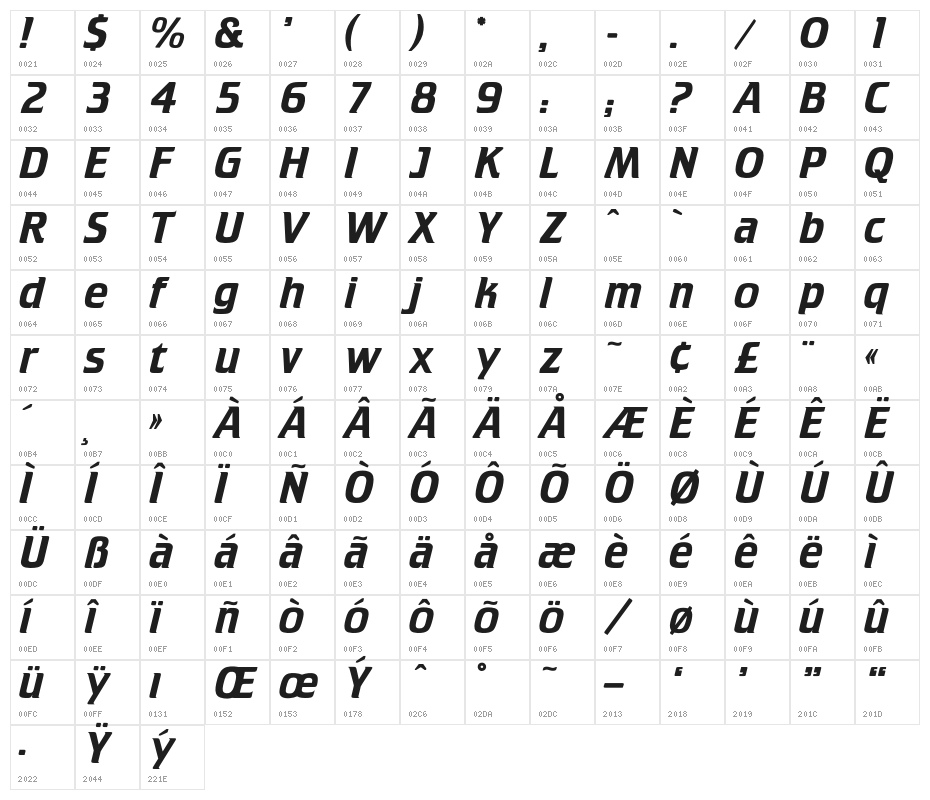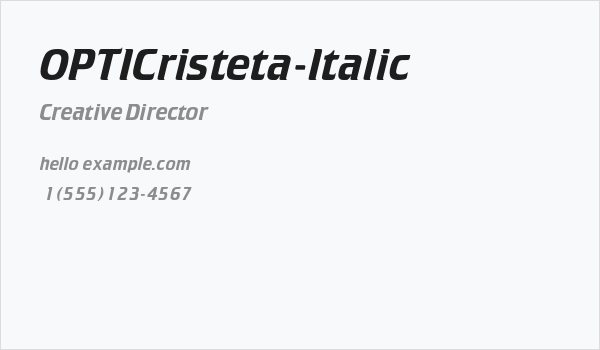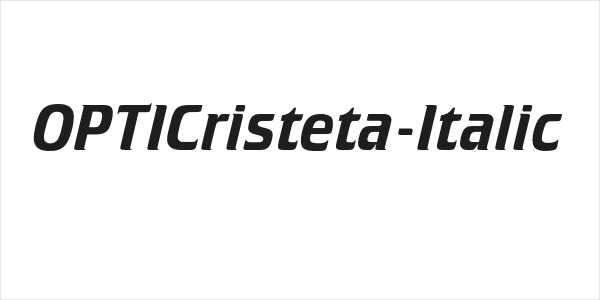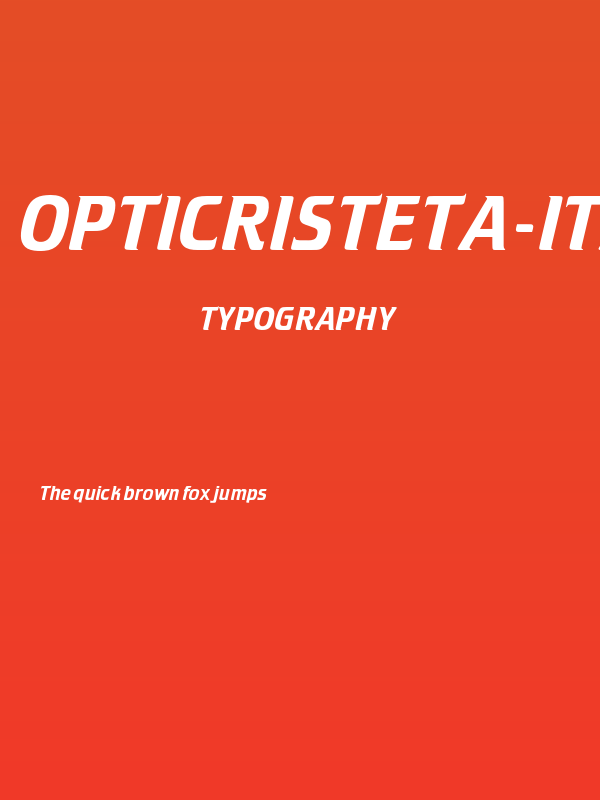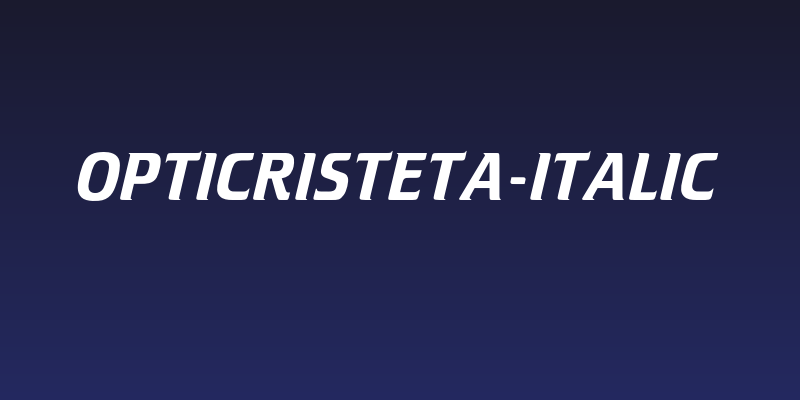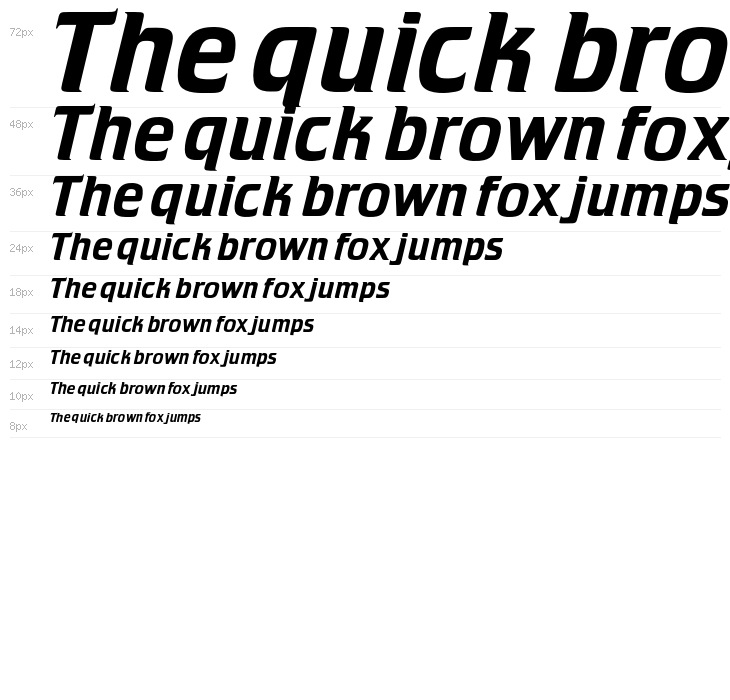
OPTICristeta-Italic Font
OPTICristeta-Italic Description
This font features a modern, italicized style with a sleek and dynamic appearance. The characters are slightly slanted, adding a sense of motion and elegance. The strokes are consistent in width, providing a uniform look across all characters. The uppercase letters are bold and commanding, while the lowercase letters maintain a smooth and flowing form. Numbers are clear and easily distinguishable, and the special characters are well-integrated into the overall design. The font's clean lines and contemporary aesthetic make it suitable for a variety of applications.
| Use Case | Headlines, Logos, Advertising |
| Proposed Projects | Ideal for branding, advertising, and editorial design where a modern and dynamic look is desired. |